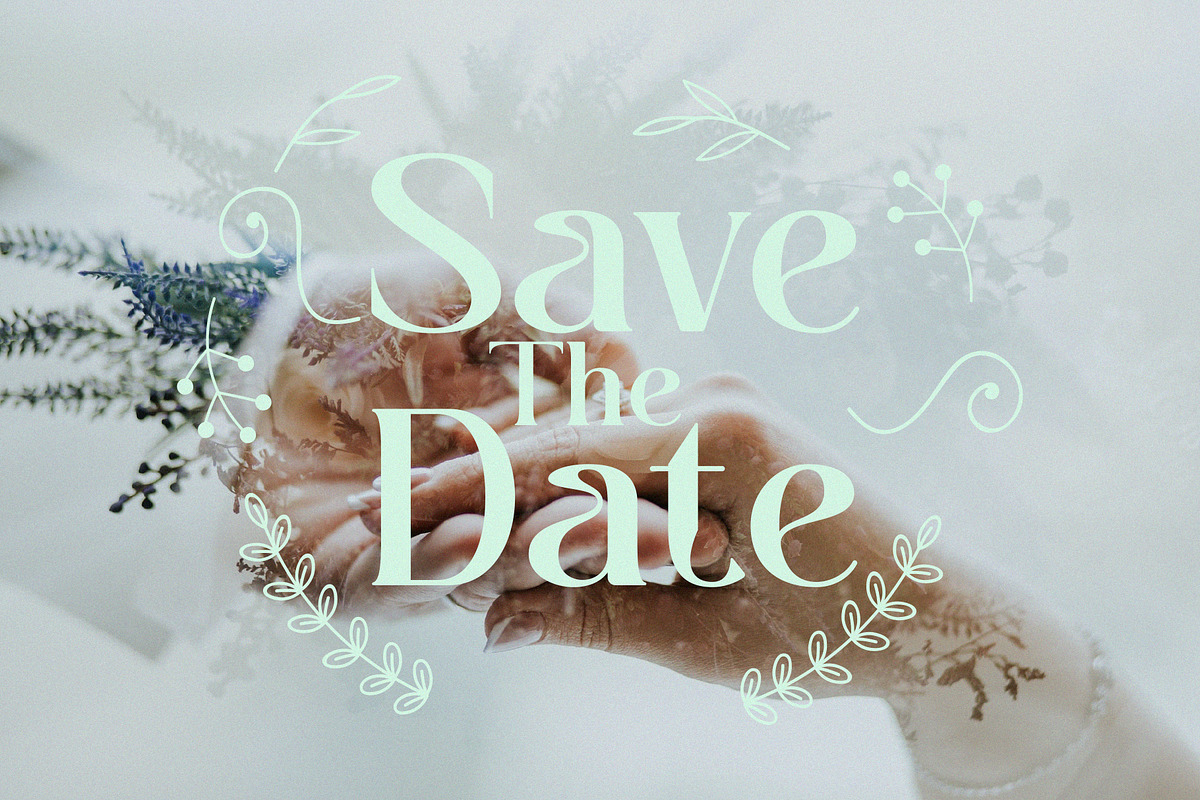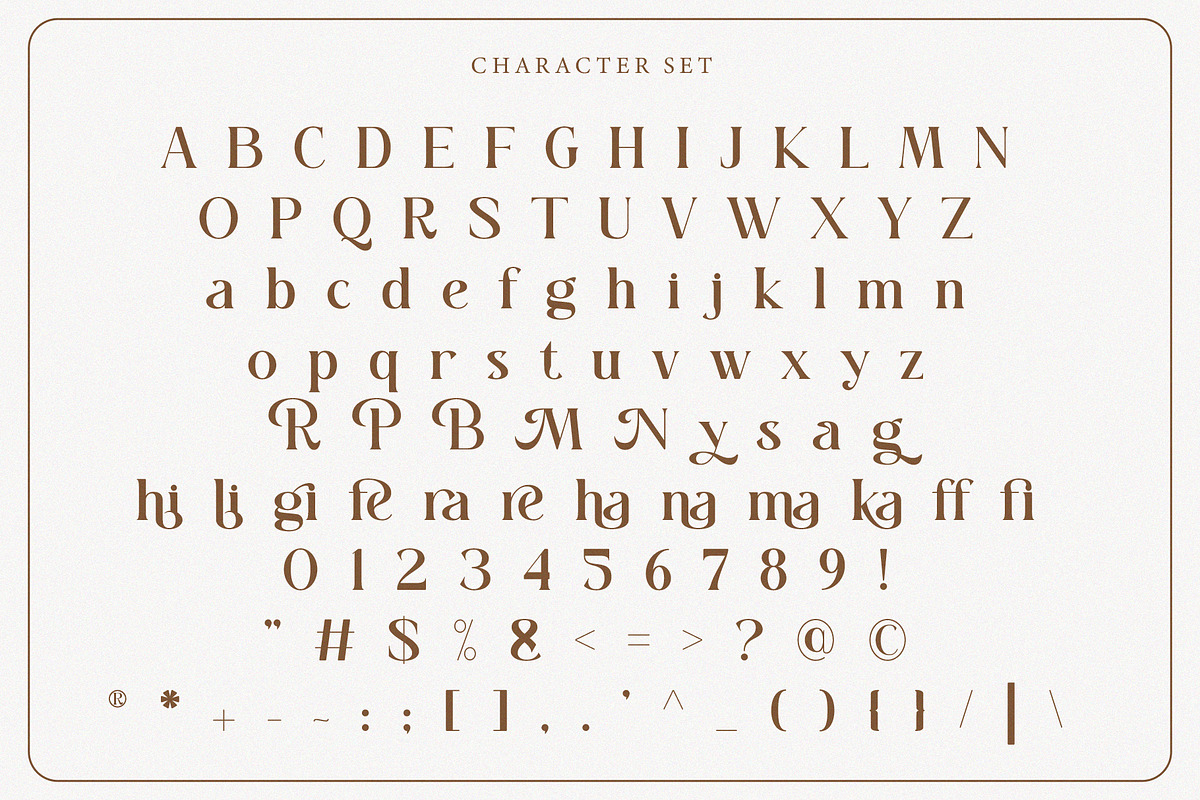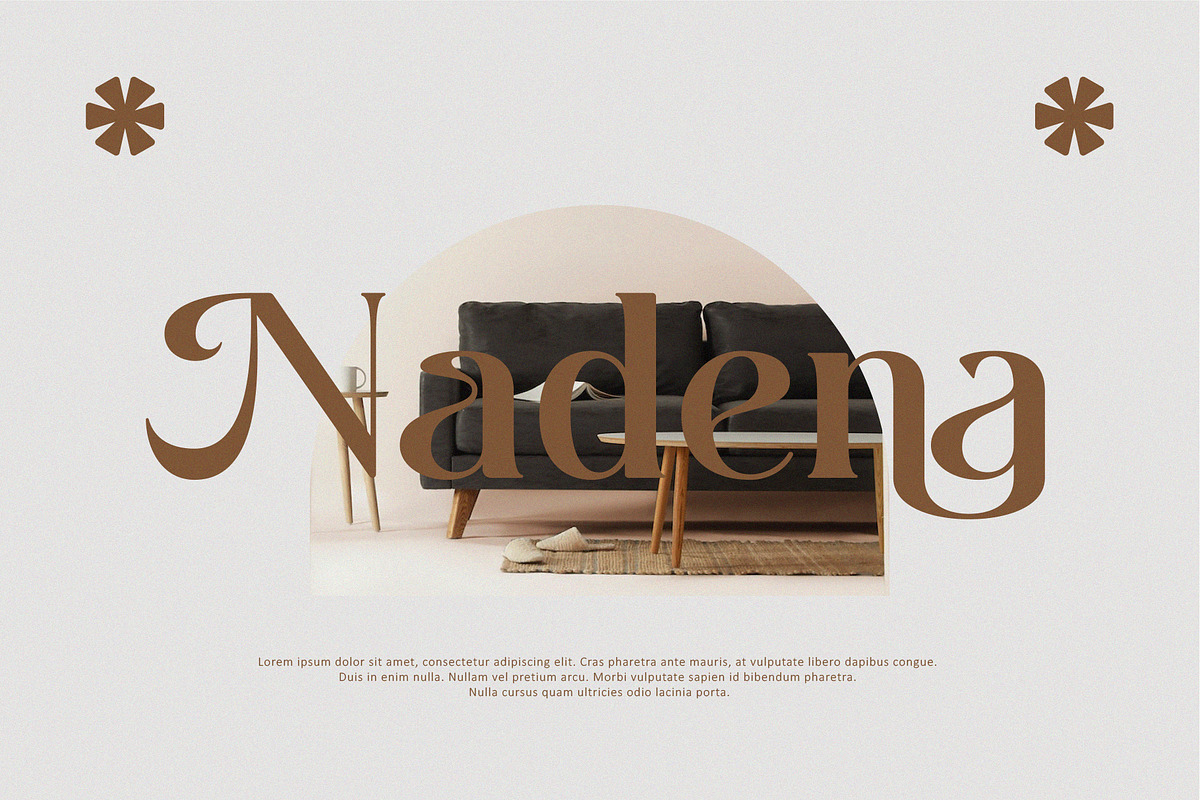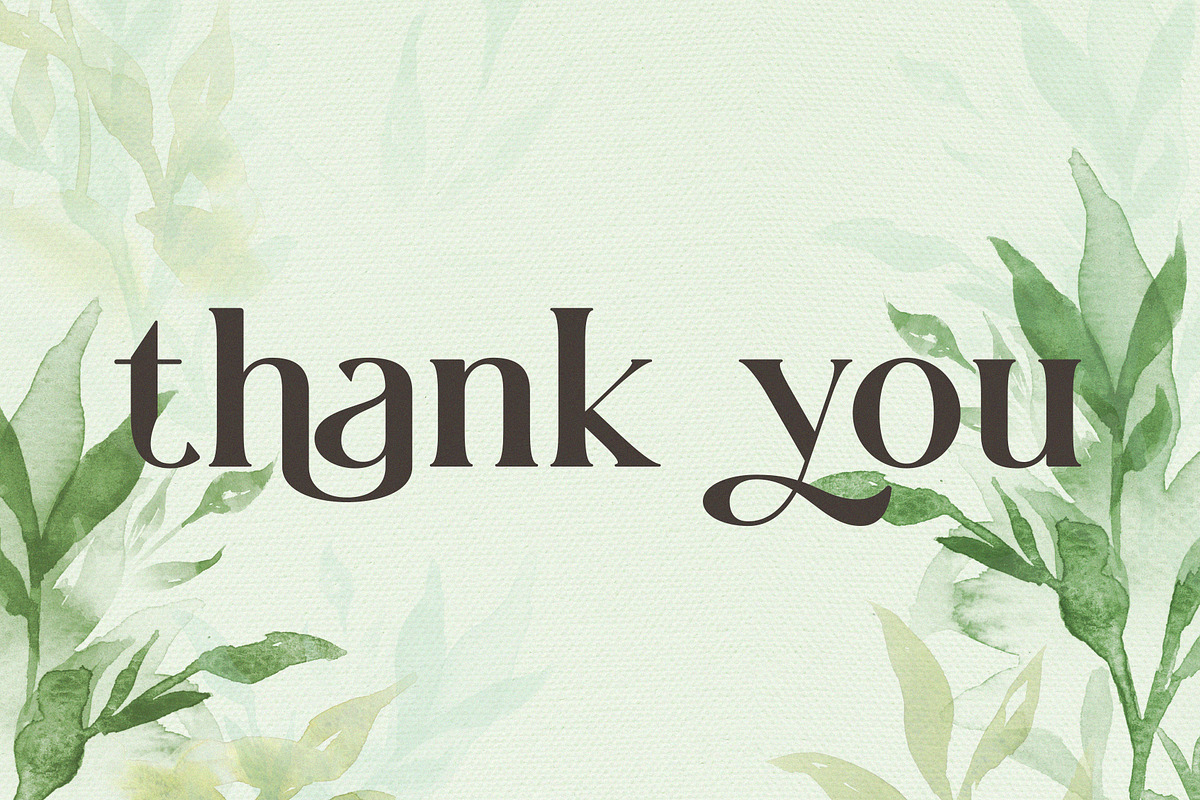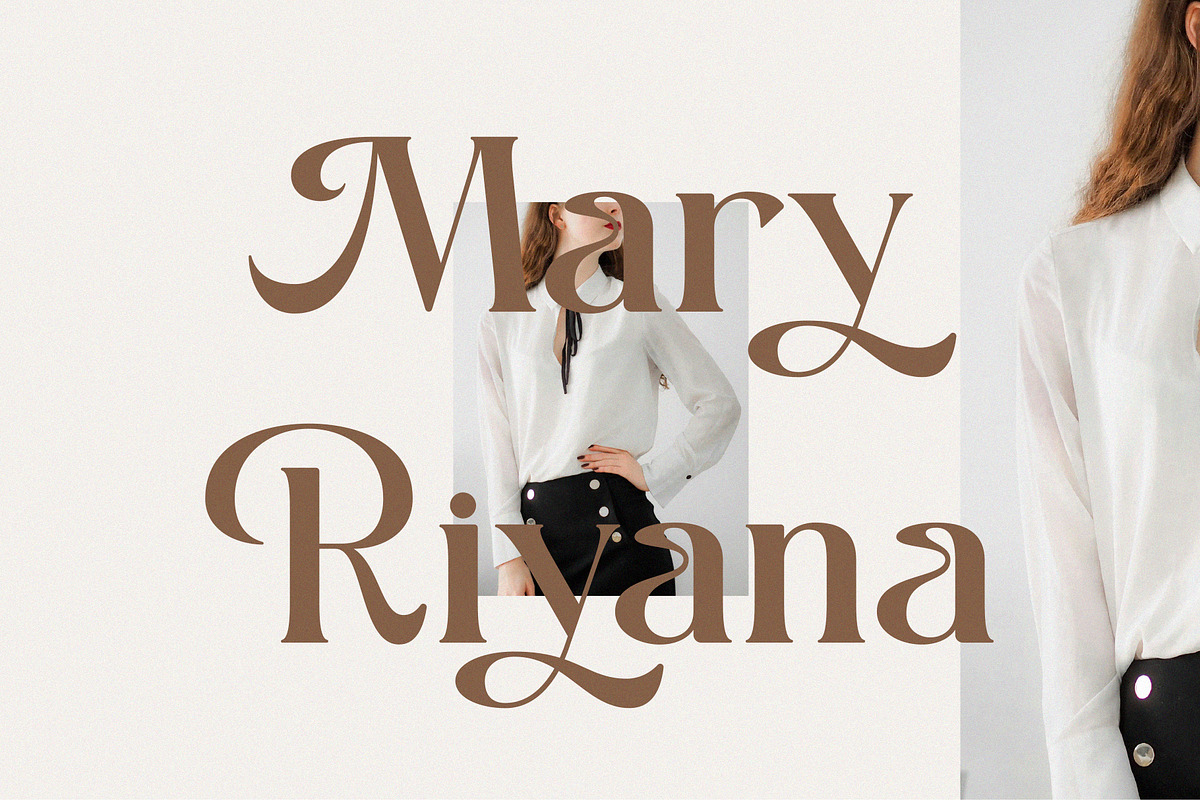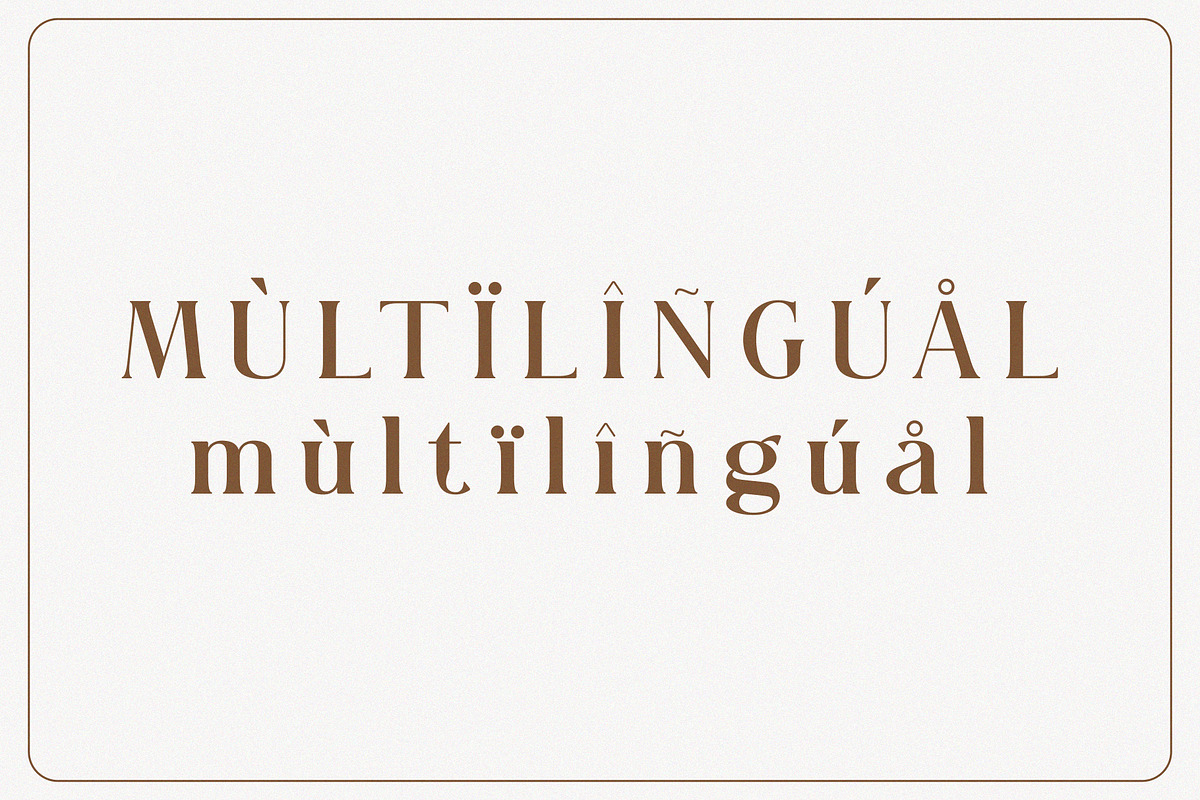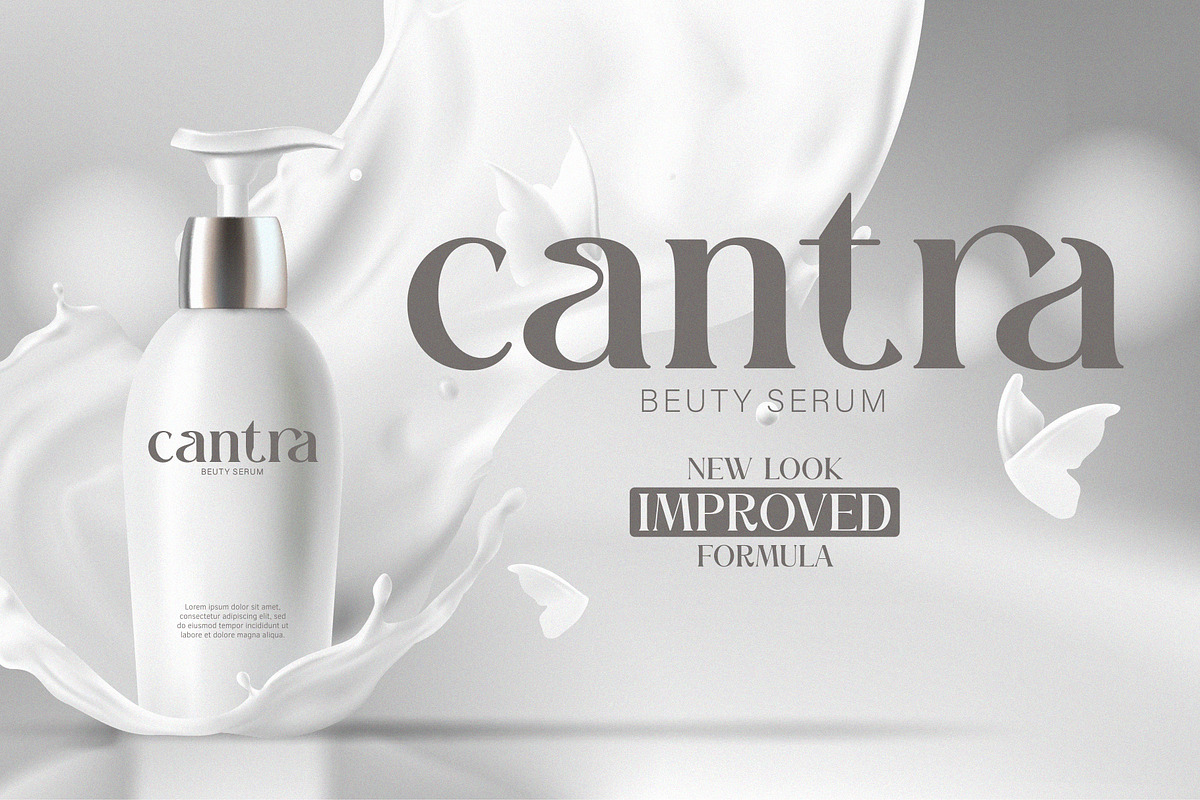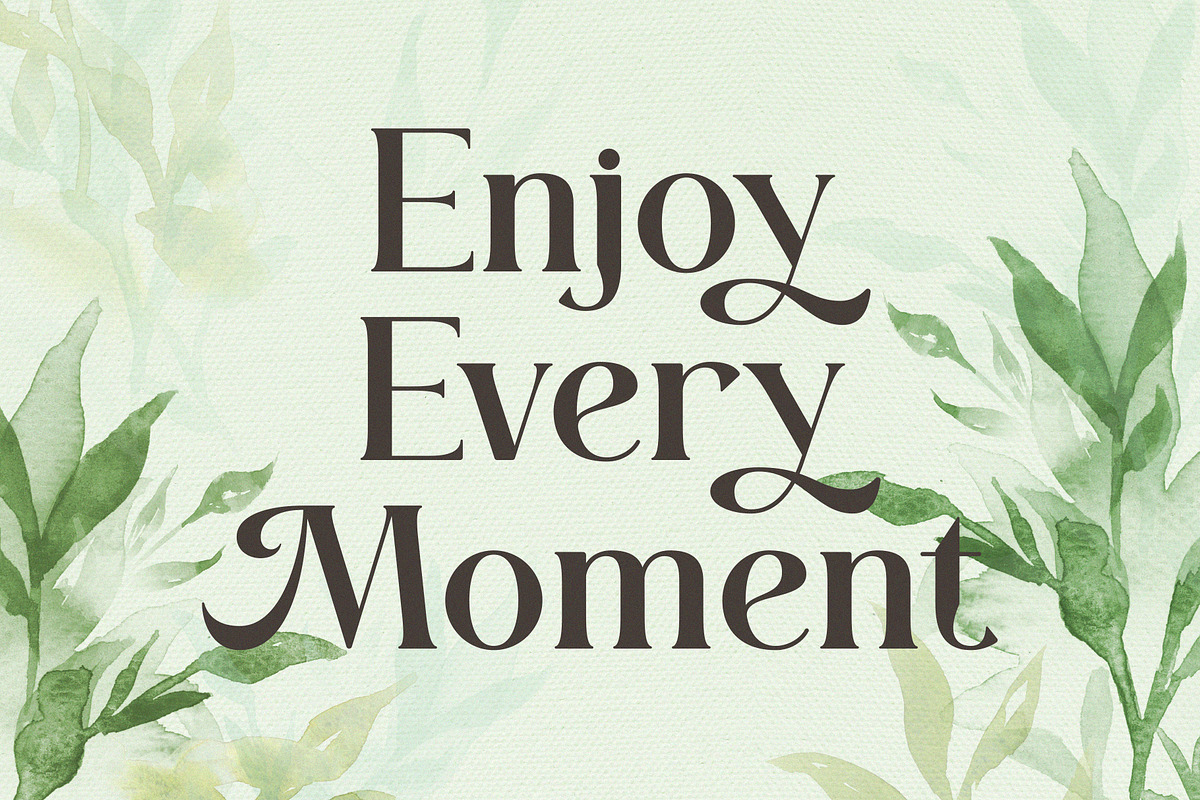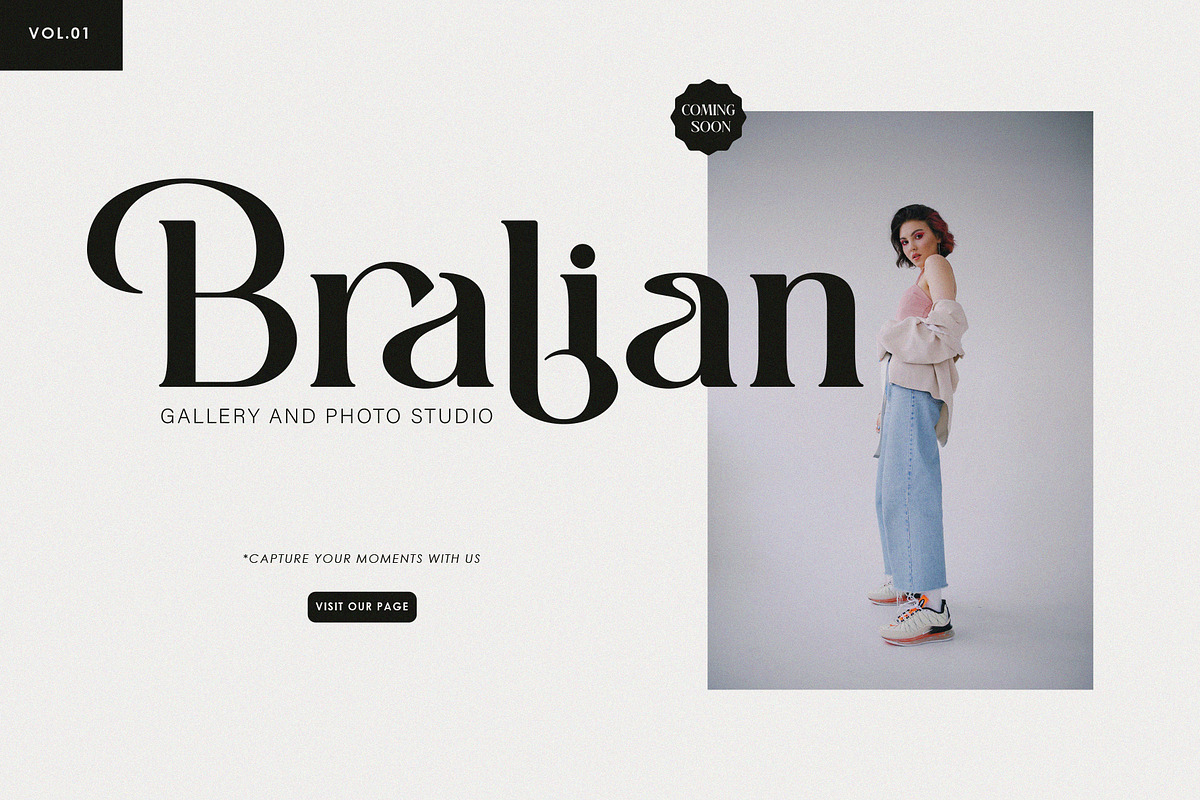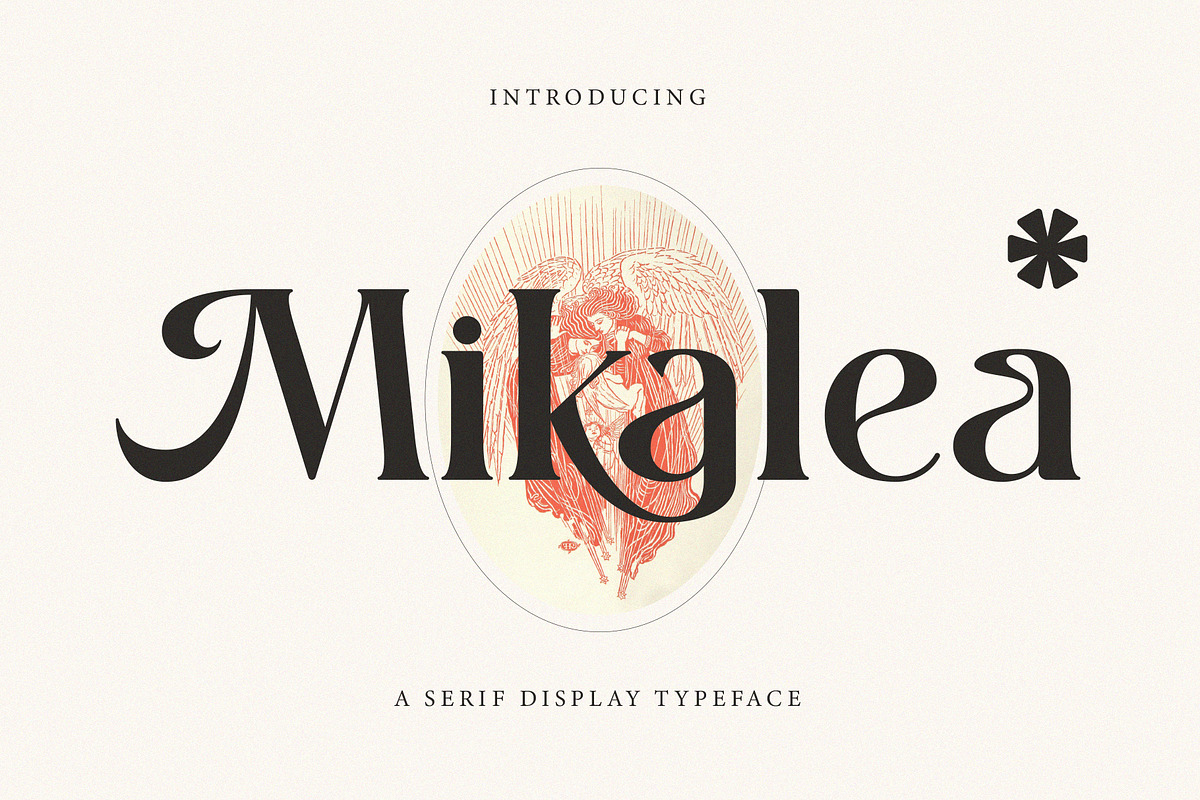
Mikalea
Introducing Mikalea An elegant and modern serif typeface. With its modern and minimalist appearance, Mikalea brings a luxurious and clean style to your projects such as websites, modern logos, branding identities, social media quotes, wedding stationery and various other needs!
Mikalea displays the capital letters A to Z which are unique and classy, of course because they are made with great care so that they become beautiful fonts and can be adapted to various large projects that you want.